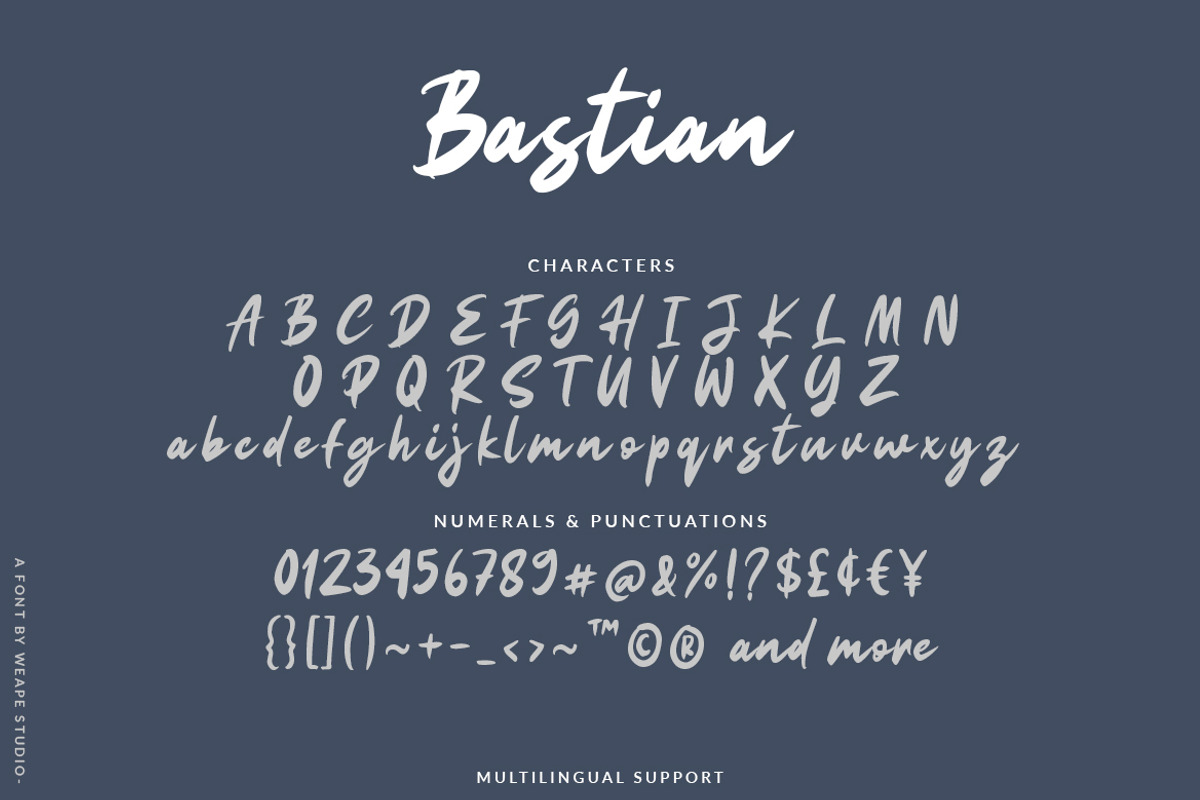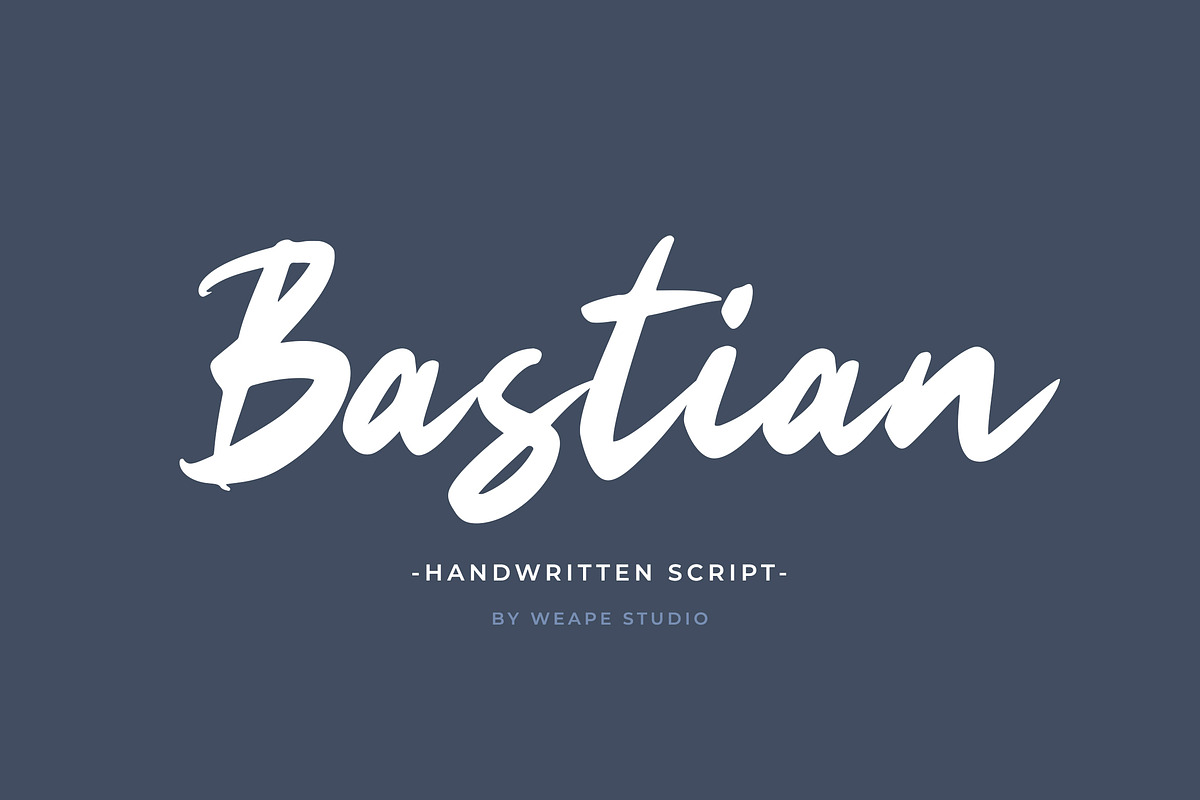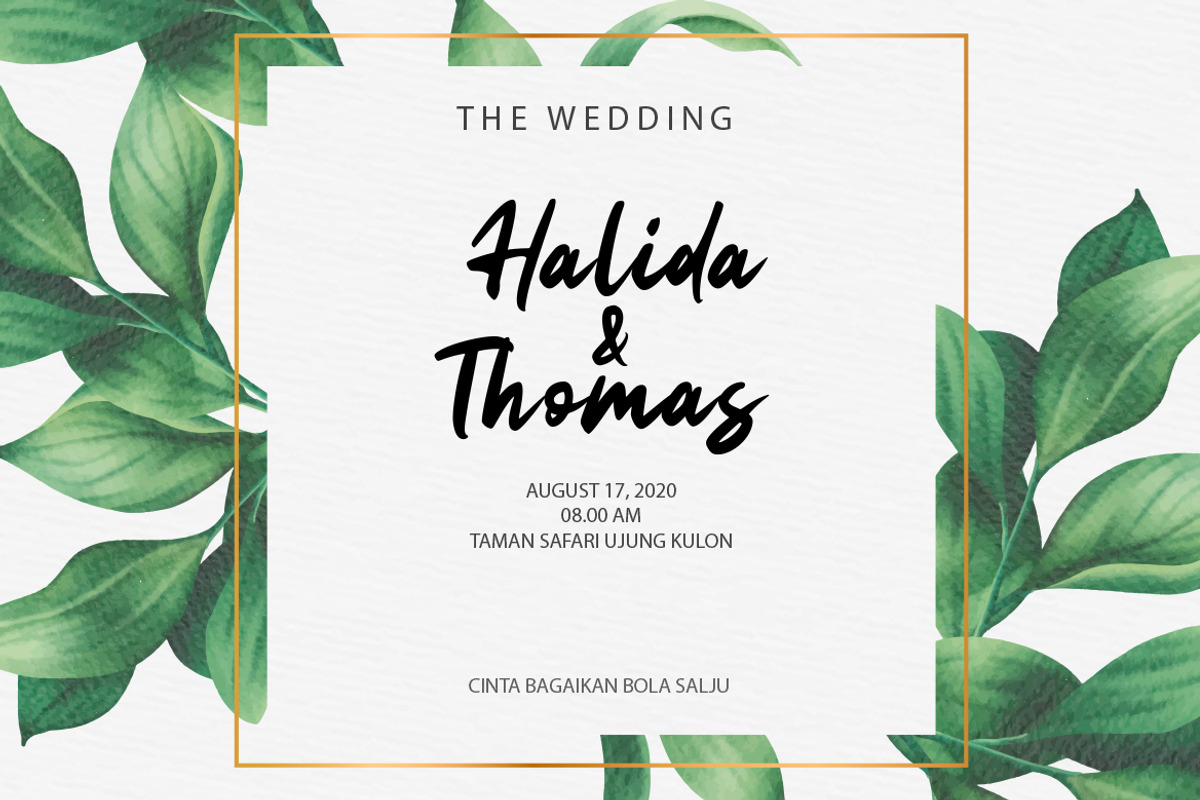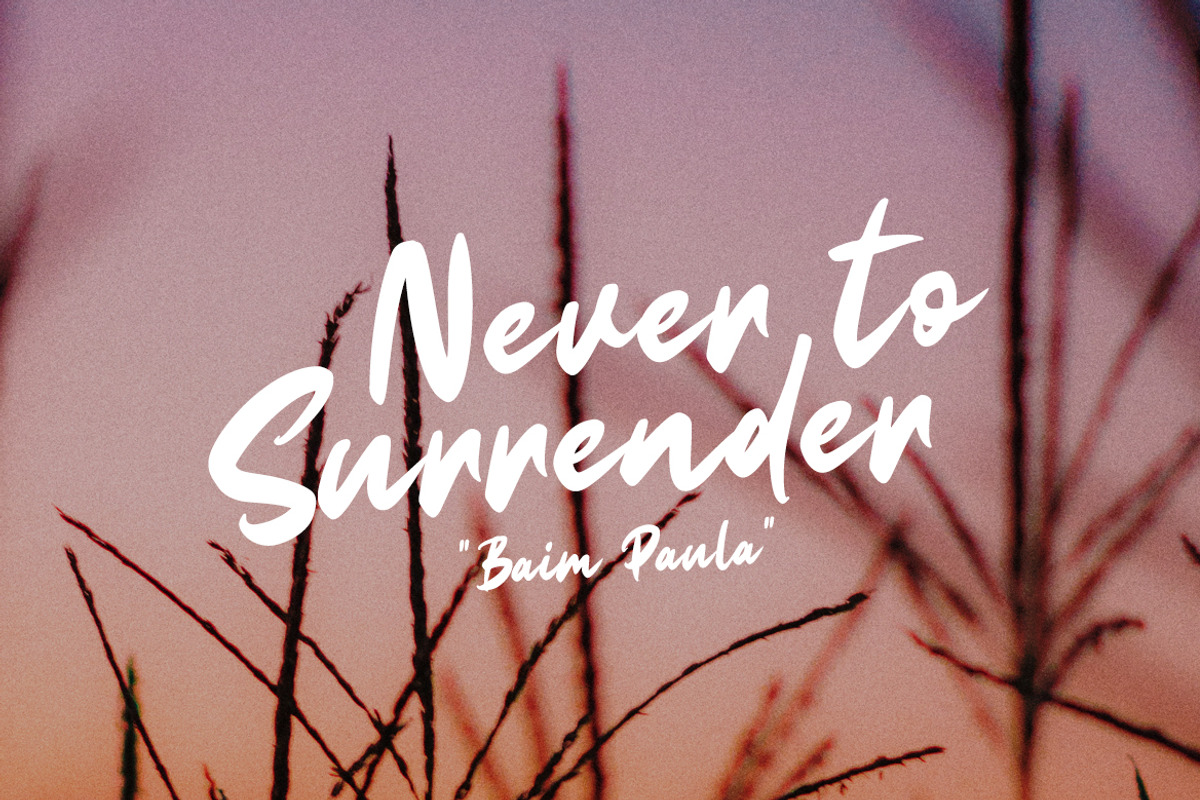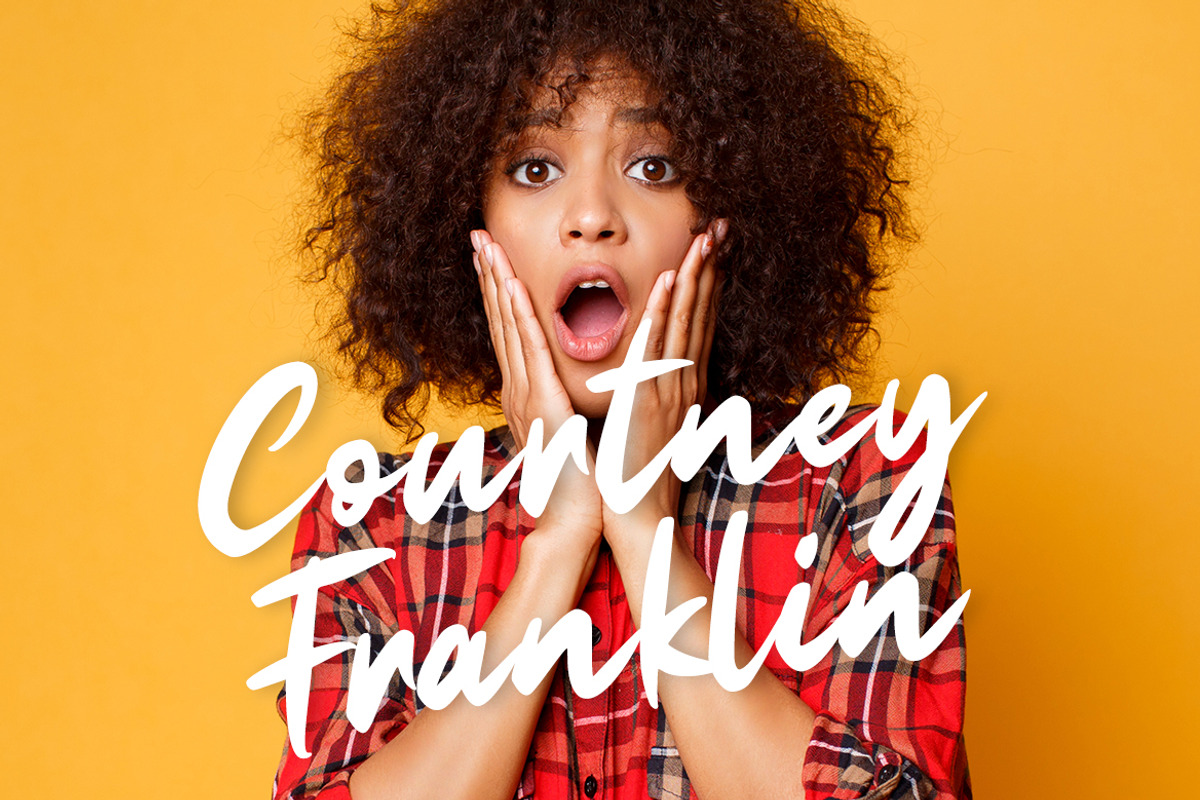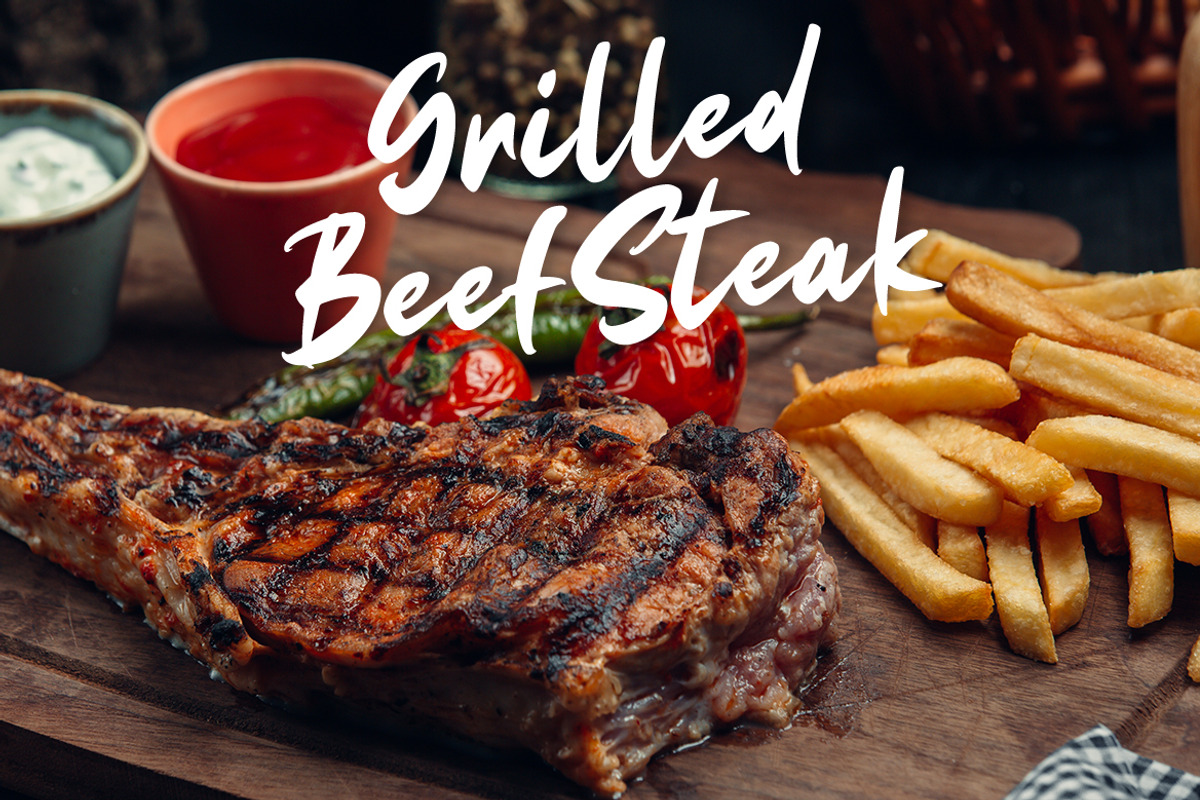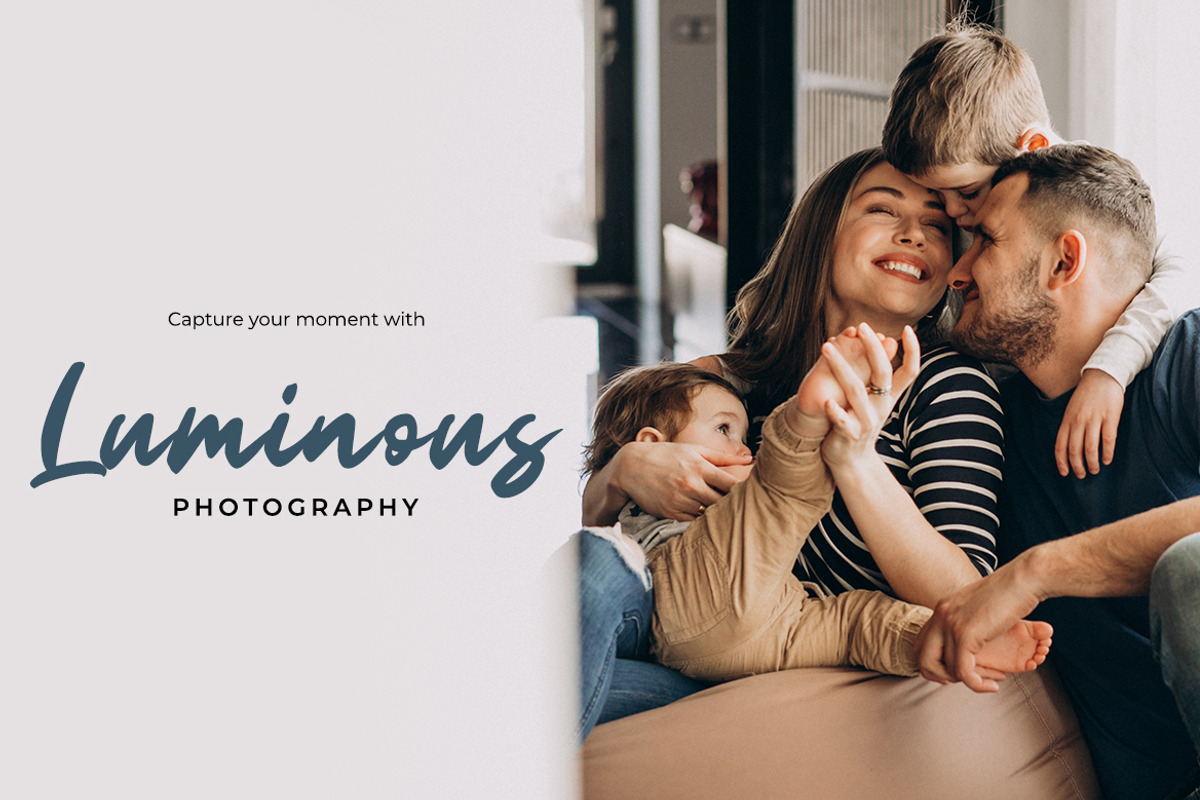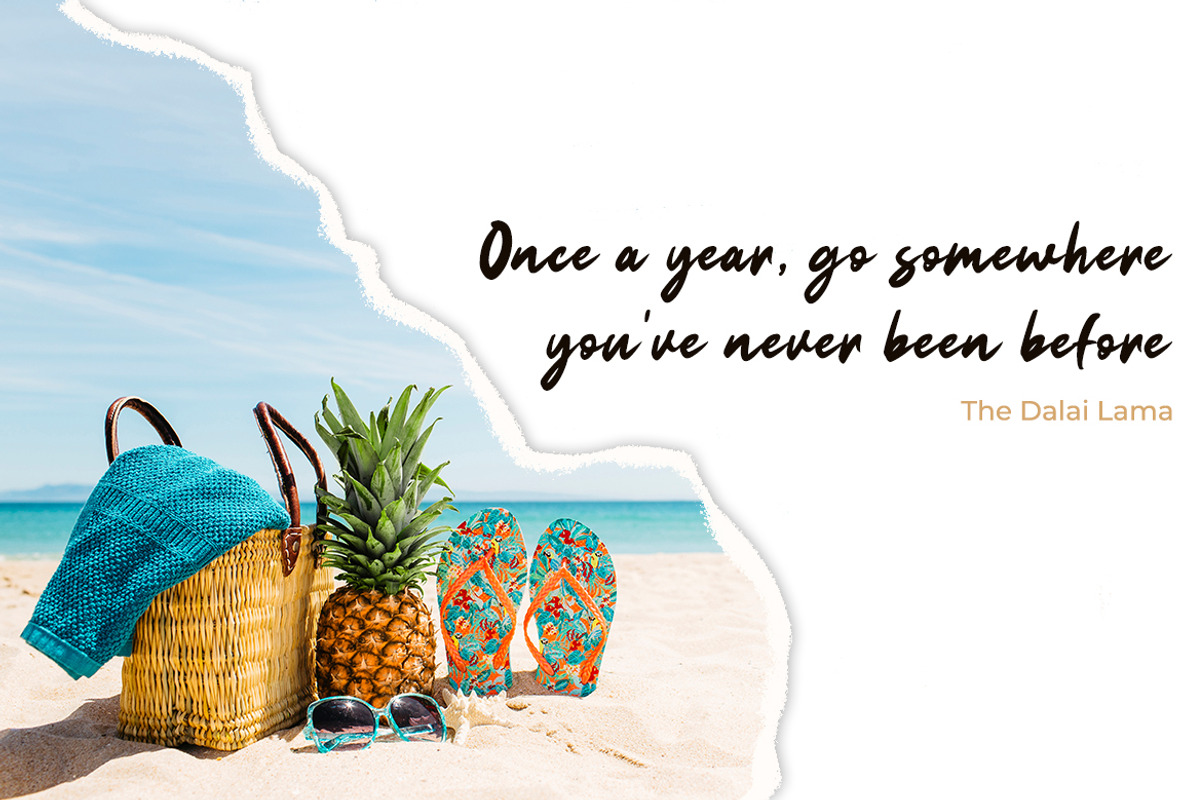
Bastian Script
Introducing Bastian Script, hand brush font with unique strokes makes it looks natural as written by hand.
Bastian is perfect for signature, branding, wedding, fashion, photography title, poster, social media, music album, book cover, packaging, handwritten quotes, greeting cards, and advertising.
All fonts containing upper & lowercase characters, numerals, punctuation, ligatures.